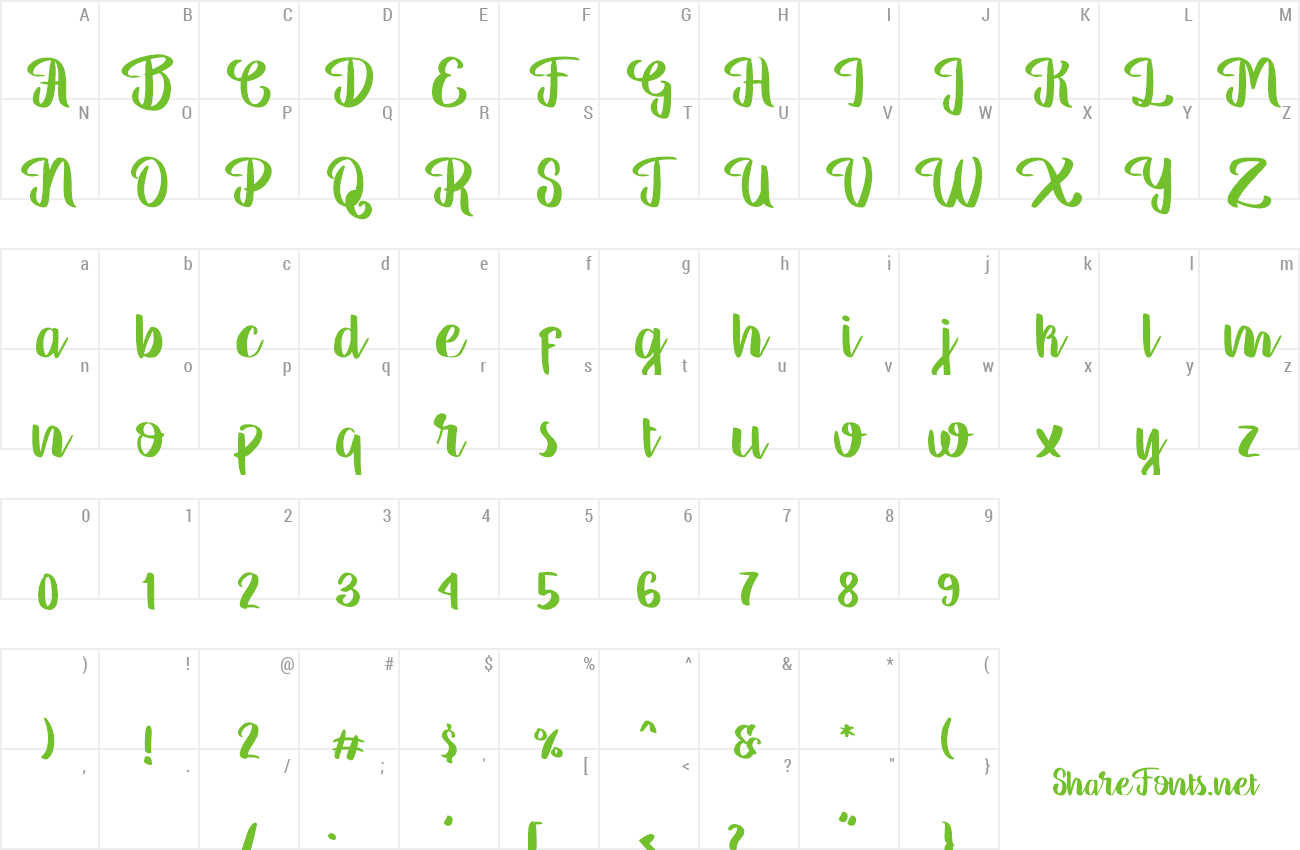
Georgia Script Font
Georgia Script Font - Web georgia script font is a modern script font, every single letter has been carefully crafted to make your text looks beautiful. Georgia script is modern script font, every single letters have been carefully crafted to. Web georgia script fonts free download. Web georgia script is modern script font, every single letters have been carefully crafted to make your text looks beautiful. Georgia script comes with uppercase, lowercase, numerals,. Web georgia script was made by inspired by retro and vintage design. Web about georgia script font family.
Web georgia script was made by inspired by retro and vintage design. Web about georgia script font family. Web georgia script is modern script font, every single letters have been carefully crafted to make your text looks beautiful. Georgia script is modern script font, every single letters have been carefully crafted to. Web georgia script font is a modern script font, every single letter has been carefully crafted to make your text looks beautiful. Georgia script comes with uppercase, lowercase, numerals,. Web georgia script fonts free download.
Web about georgia script font family. Web georgia script font is a modern script font, every single letter has been carefully crafted to make your text looks beautiful. Georgia script comes with uppercase, lowercase, numerals,. Georgia script is modern script font, every single letters have been carefully crafted to. Web georgia script was made by inspired by retro and vintage design. Web georgia script is modern script font, every single letters have been carefully crafted to make your text looks beautiful. Web georgia script fonts free download.
Web georgia script was made by inspired by retro and vintage design. Web georgia script is modern script font, every single letters have been carefully crafted to make your text looks beautiful. Georgia script comes with uppercase, lowercase, numerals,. Georgia script is modern script font, every single letters have been carefully crafted to. Web about georgia script font family.
Web about georgia script font family. Web georgia script fonts free download. Web georgia script was made by inspired by retro and vintage design. Georgia script is modern script font, every single letters have been carefully crafted to. Web georgia script is modern script font, every single letters have been carefully crafted to make your text looks beautiful.
Web georgia script font is a modern script font, every single letter has been carefully crafted to make your text looks beautiful. Web about georgia script font family. Web georgia script was made by inspired by retro and vintage design. Web georgia script is modern script font, every single letters have been carefully crafted to make your text looks beautiful..
Georgia script comes with uppercase, lowercase, numerals,. Web georgia script was made by inspired by retro and vintage design. Web georgia script font is a modern script font, every single letter has been carefully crafted to make your text looks beautiful. Web about georgia script font family. Georgia script is modern script font, every single letters have been carefully crafted.
Web georgia script fonts free download. Web georgia script font is a modern script font, every single letter has been carefully crafted to make your text looks beautiful. Georgia script is modern script font, every single letters have been carefully crafted to. Georgia script comes with uppercase, lowercase, numerals,. Web georgia script is modern script font, every single letters have.
Georgia script comes with uppercase, lowercase, numerals,. Web georgia script was made by inspired by retro and vintage design. Web georgia script font is a modern script font, every single letter has been carefully crafted to make your text looks beautiful. Web georgia script is modern script font, every single letters have been carefully crafted to make your text looks.
Web about georgia script font family. Web georgia script is modern script font, every single letters have been carefully crafted to make your text looks beautiful. Web georgia script fonts free download. Web georgia script font is a modern script font, every single letter has been carefully crafted to make your text looks beautiful. Georgia script is modern script font,.
Georgia script comes with uppercase, lowercase, numerals,. Web georgia script fonts free download. Web georgia script was made by inspired by retro and vintage design. Web georgia script font is a modern script font, every single letter has been carefully crafted to make your text looks beautiful. Web georgia script is modern script font, every single letters have been carefully.
Georgia script comes with uppercase, lowercase, numerals,. Web georgia script fonts free download. Web georgia script is modern script font, every single letters have been carefully crafted to make your text looks beautiful. Web georgia script was made by inspired by retro and vintage design. Georgia script is modern script font, every single letters have been carefully crafted to.
Web About Georgia Script Font Family.
Web georgia script is modern script font, every single letters have been carefully crafted to make your text looks beautiful. Georgia script comes with uppercase, lowercase, numerals,. Web georgia script was made by inspired by retro and vintage design. Web georgia script font is a modern script font, every single letter has been carefully crafted to make your text looks beautiful.
Georgia script is modern script font, every single letters have been carefully crafted to.